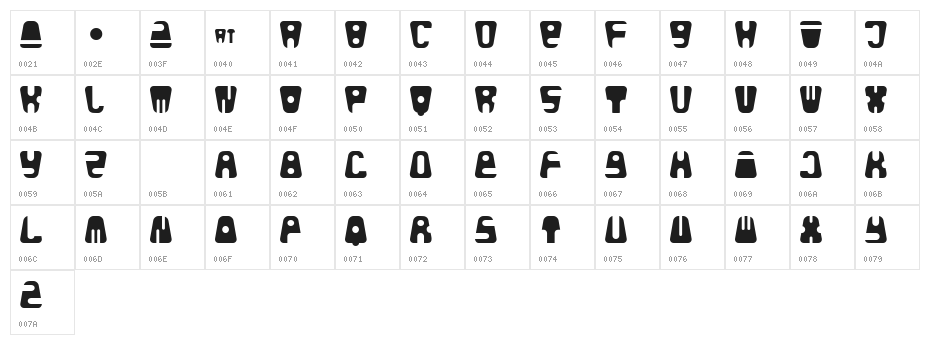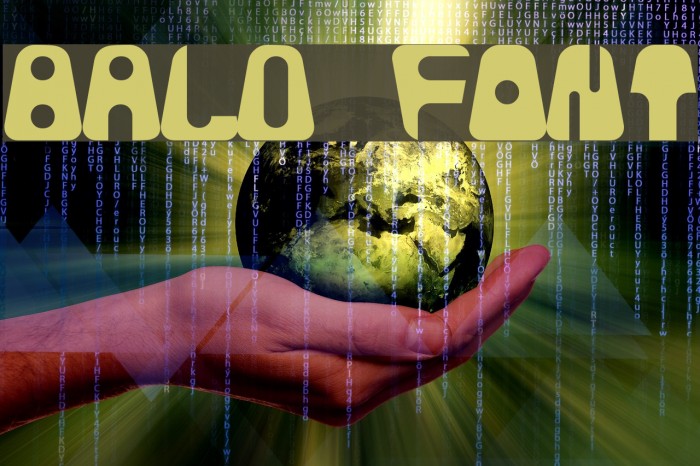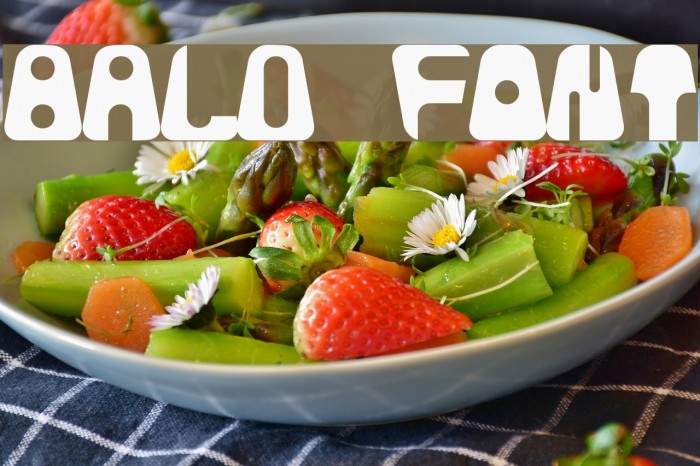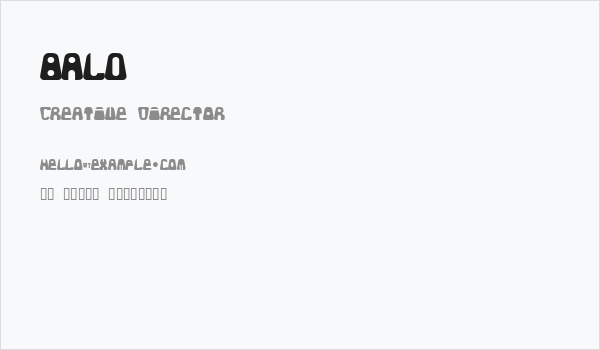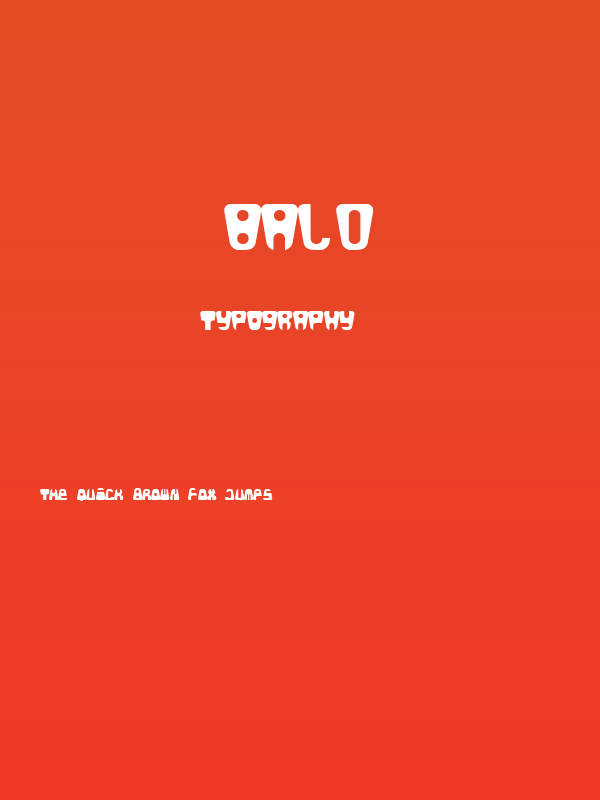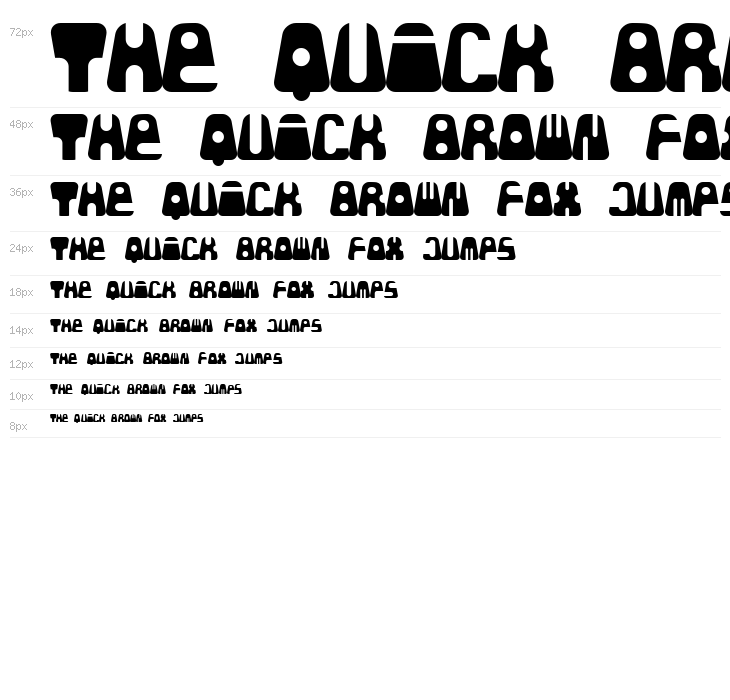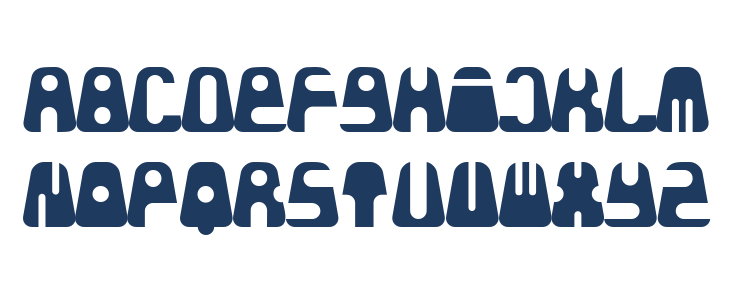
bald Font
bald Description
This font features a bold and playful design with a distinctly modern and geometric aesthetic. The characters are heavily stylized, with thick, uniform strokes and rounded edges that give them a unique, almost futuristic appearance. The uppercase and lowercase letters maintain a consistent width, creating a cohesive look across the alphabet. The numbers and special characters follow the same design principles, ensuring uniformity throughout. This font is highly decorative, making it ideal for projects that require a standout, eye-catching typeface.